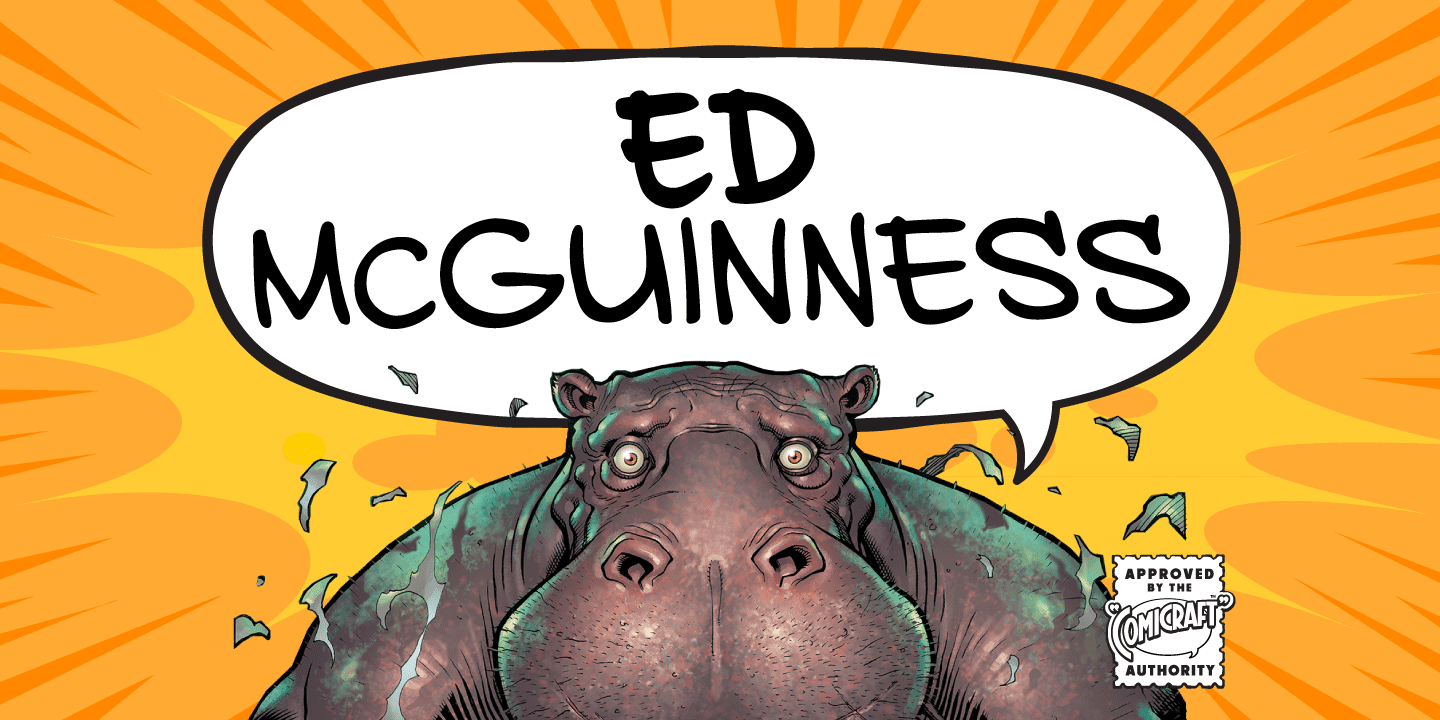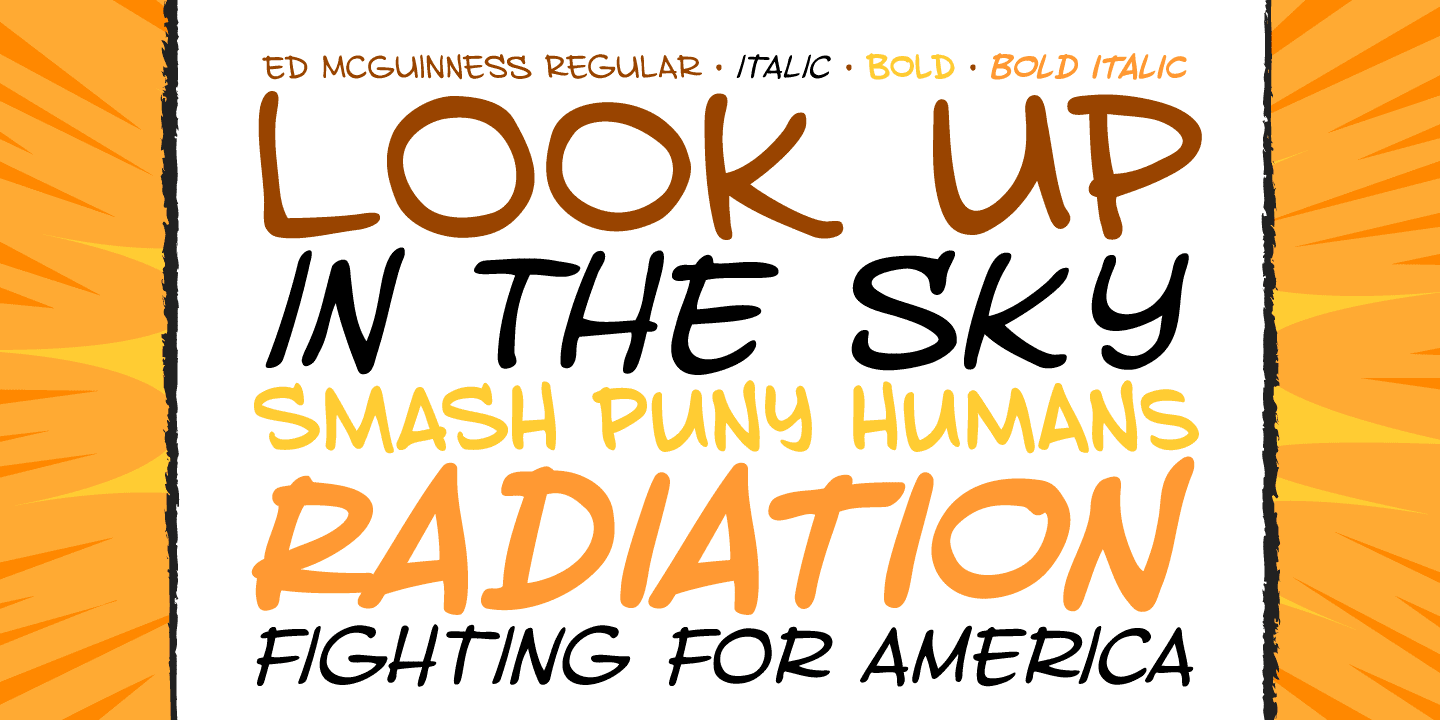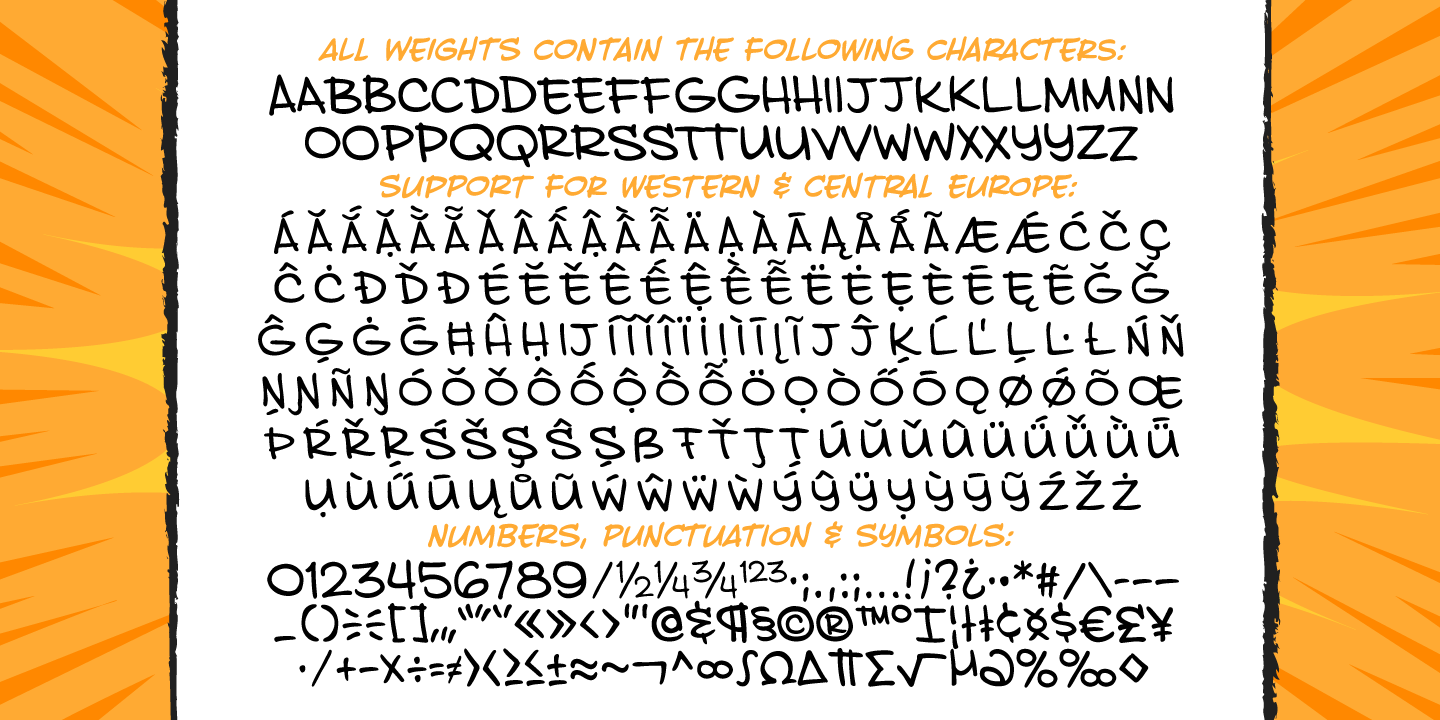
Ed McGuinness
Font Family by Comicraft Fonts
Fighting American and all around Superman Ed McGuinness joins our Masters of Comic Book Art with a font inspired by his gamma ray saturated handwriting! Ed is officially a friend of Comicraft and a big smile in Hulk form! Now a small slice of this Jolly Green Giant is available as an alphabet waiting for puny humans to arrange in words of no more than two syllables.